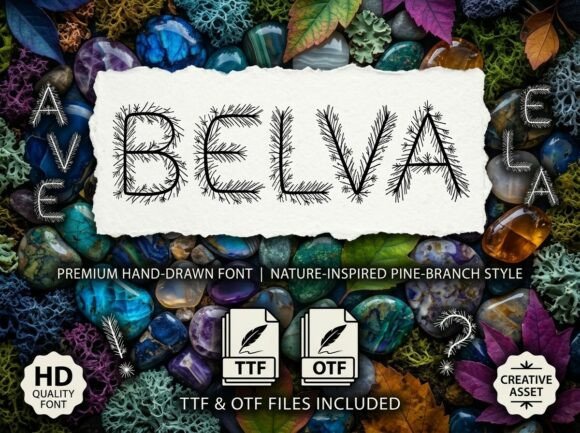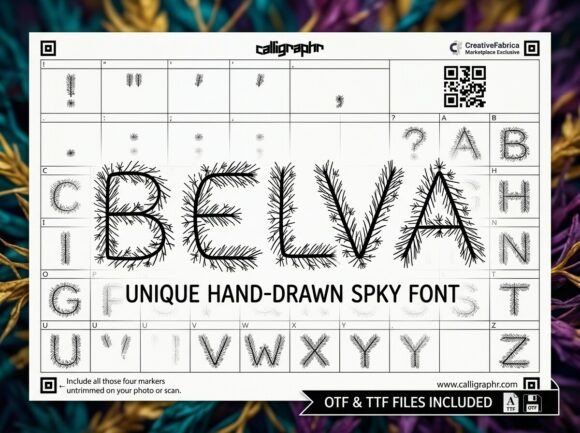
Introducing Belva Font: A Wild-and-Woodland Typeface for Organic Design
Are you looking for a font that captures the essence of the great outdoors? Do you want to add a touch of rustic charm to your designs? Look no further than Belva Font, a tactile display typeface that embodies the spirit of the wild and woodland. In this article, we’ll explore the unique features of Belva Font and how it can elevate your designs.
The Inspiration Behind Belva Font
Belva Font is the brainchild of a talented designer who sought to bridge the gap between botanical illustration and modern rustic branding. The font features classic letterforms constructed from rhythmic, hand-drawn “pine needle” clusters and evergreen sprigs. This unique approach gives Belva Font a textured personality that’s perfect for designs that require a natural, earthy feel.
Key Features of Belva Font
So, what makes Belva Font so special? Here are some of its key features:
- Medium structural weight: Belva Font has a sturdy, medium weight that makes it perfect for display text and headlines.
- Textured personality: The font’s hand-drawn “pine needle” clusters and evergreen sprigs give it a unique, textured look that’s sure to grab attention.
- Classic letterforms: Belva Font features classic letterforms with a modern twist, making it suitable for a wide range of design applications.
- Botanical inspiration: The font’s botanical inspiration gives it a fresh, natural feel that’s perfect for designs that require an organic look.
Use Cases for Belva Font
Belva Font is a versatile typeface that can be used in a variety of design applications. Here are some use cases where Belva Font shines:
- Independent winter lodge identities: Belva Font is perfect for creating rustic, charming logos and branding materials for winter lodges and ski resorts.
- Boutique Christmas tree farm logos: The font’s festive, natural feel makes it an excellent choice for Christmas tree farm logos and branding materials.
- Handcrafted apothecary labels: Belva Font’s textured personality and botanical inspiration make it a great fit for handcrafted apothecary labels and packaging.
- High-impact social media headers: The font’s bold, eye-catching design makes it perfect for social media headers that require a strong visual impact.
Why Choose Belva Font?
With so many fonts available, why choose Belva Font? Here are some reasons why Belva Font stands out:
- Unique design: Belva Font’s unique blend of botanical illustration and modern rustic branding sets it apart from other fonts.
- High-quality craftsmanship: The font is carefully crafted with attention to detail, ensuring a high-quality finish.
- Versatility: Belva Font can be used in a variety of design applications, from logos and branding materials to social media headers and packaging.
In conclusion, Belva Font is a versatile and unique typeface that’s perfect for designers and crafters looking to add a touch of rustic charm to their designs. With its medium structural weight, textured personality, and botanical inspiration, Belva Font is an excellent choice for a wide range of design applications. Whether you’re creating independent winter lodge identities, boutique Christmas tree farm logos, handcrafted apothecary labels, or high-impact social media headers, Belva Font is the premier choice for organic design.
Get Ready to Branch Out into Organic Design with Belva Font
Ready to take your designs to the next level with Belva Font? With its wild-and-woodland soul and unique blend of botanical illustration and modern rustic branding, Belva Font is the perfect tool for designers and crafters looking to create stunning, eye-catching designs. So why wait? Download Belva Font today and start creating your own organic masterpieces!